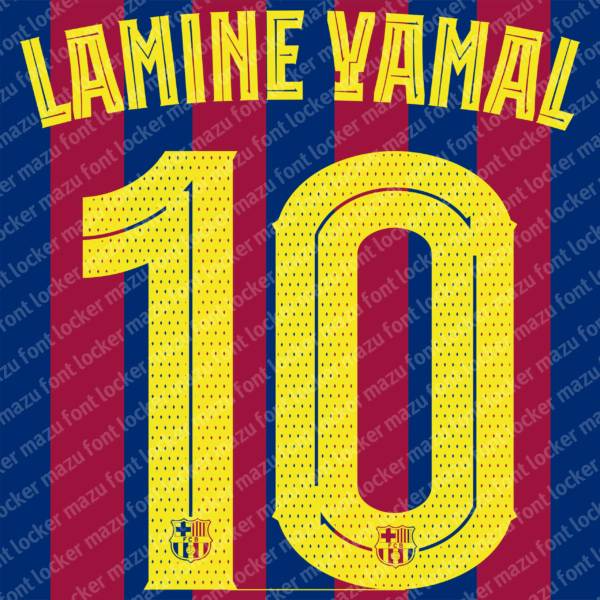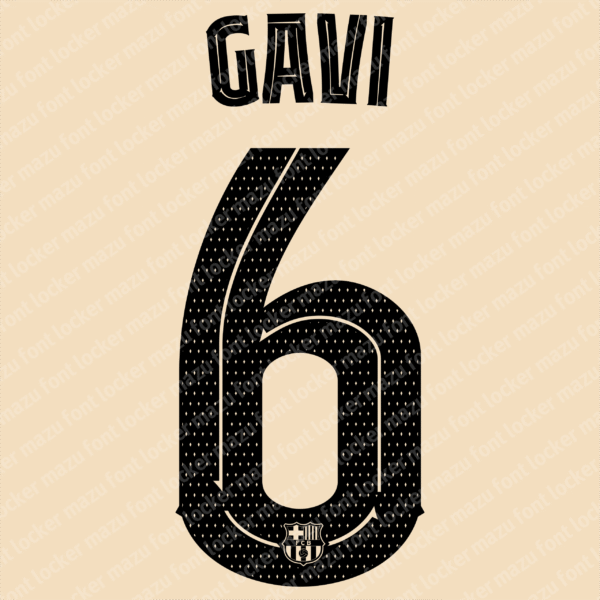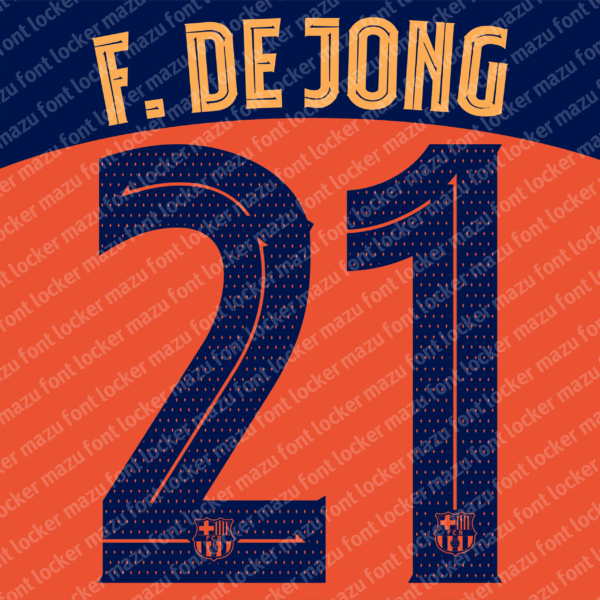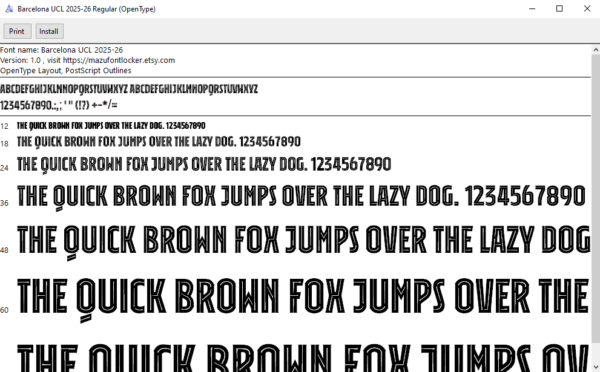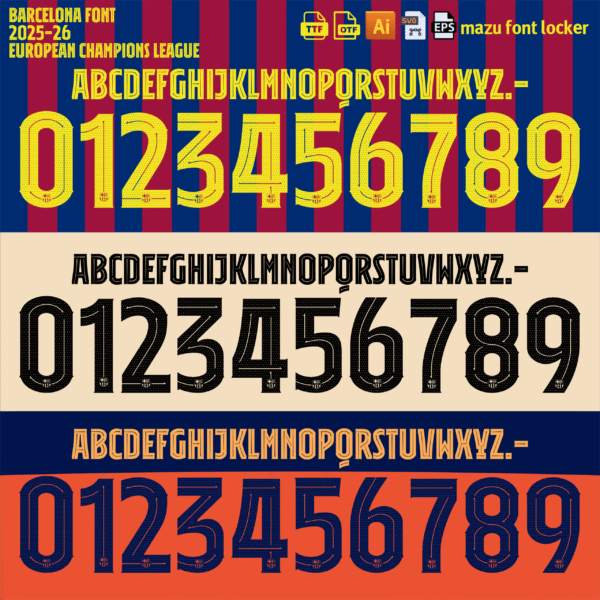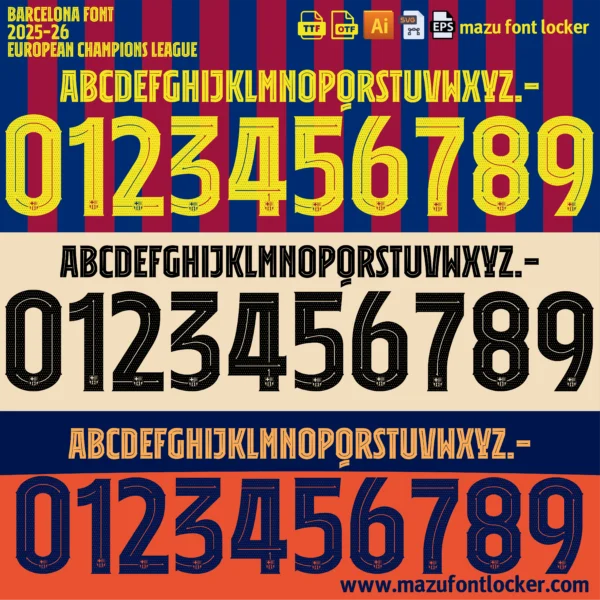
Barcelona 2025-2026 Font Vector – Stunning Blaugrana Masterpiece
Download the Barcelona 2025-2026 Font Vector (AI, EPS, SVG, OTF, TTF) and unleash the bold, iconic, and electrifying match typography from FC Barcelona’s explosive 2025-2026 season. This font captures the legendary Blaugrana lettering that dominates La Liga and Europe.
Channeling the proud Culé spirit and Catalan identity, it features the sharp, elegant style that represents the club’s attacking philosophy and rich heritage. Perfect for premium jersey mockups, football designs, and passionate Barcelona art.
Barcelona 2025-2026 Font Vector – Blaugrana Typeface
The Barcelona 2025-2026 Font Vector is a premium typeface that faithfully recreates the distinctive lettering from FC Barcelona’s official 2025-2026 season kit. This vector font kit captures the elegant, bold, and iconic typography that represents one of the world’s biggest football clubs.
Designed for graphic designers, football fans, content creators, and Barça supporters, the Barcelona 2025-2026 Font Vector delivers high authenticity for jersey mockups, fan merchandise, social media graphics, posters, and creative projects.
Why Choose Barcelona 2025-2026 Font Vector
This font set is prized for its precision and attention to detail. Every glyph has been meticulously recreated to match the official typography used on FC Barcelona’s 2025-2026 home, away, and third kits.
The letterforms are bold, modern, and slightly condensed with clean, sharp edges — delivering the classic Blaugrana aesthetic with excellent readability for both large back numbers and intricate design work.
The numerals feature athletic proportions, strong contours, and balanced weight, making them perfect for replicating player names and squad numbers on the 2025-2026 kits.
• Full uppercase A–Z and numbers 0–9 in the official 2025-2026 style
• Special FC Barcelona crest glyph for authentic number detailing
• Multilingual Latin support with diacritics
• Craft accurate Barcelona 2025-2026 jersey replicas and mockups
• Design stunning fan art, matchday posters, and campaign visuals
• Create exclusive Blaugrana merchandise with authentic club identity
• Produce captivating content for Instagram, TikTok, and football communities
• Includes precise crest placement used under player numbers on the official kit
The Barcelona 2025-2026 Font Vector is an independently developed typeface package. It has been carefully crafted to replicate the official lettering from the 2025-2026 season kits. Ideal for artistic projects, fan creations, and football design enthusiasts.